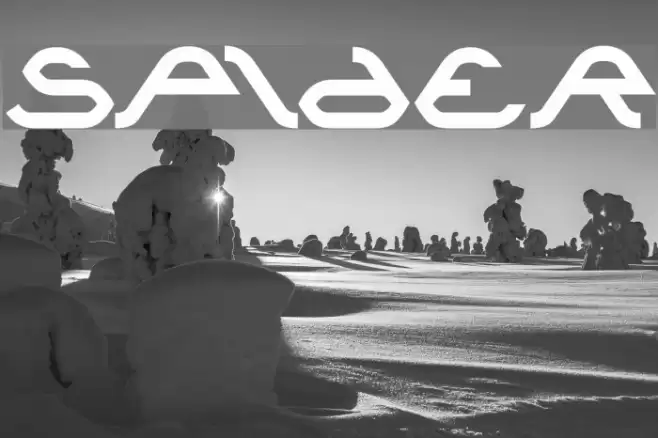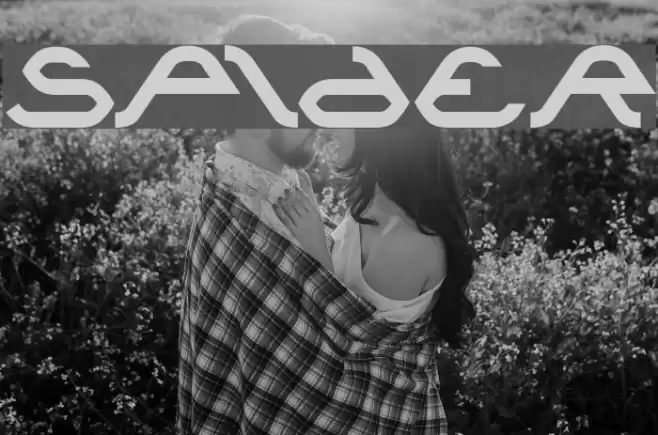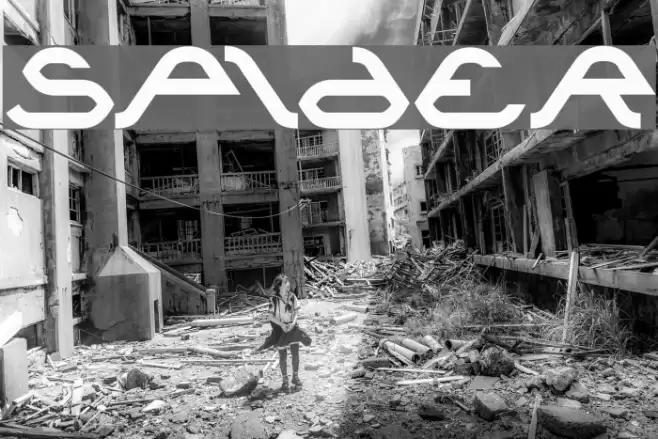
spider Font
spider Description
This font features a unique and futuristic design with angular and geometric shapes. Each character is crafted with a consistent thickness, creating a uniform appearance across the alphabet. The letters are stylized with sharp edges and a modern aesthetic, making them stand out with a distinct personality. The uppercase letters are particularly striking, with a bold presence that captures attention. The design is minimalistic yet impactful, suitable for projects that require a contemporary and edgy look.
A futuristic, geometric font with angular shapes and a bold presence from Uncategorized fonts.
- Proposed Projects: Ideal for sci-fi themed designs, technology branding, video game interfaces, and modern posters.